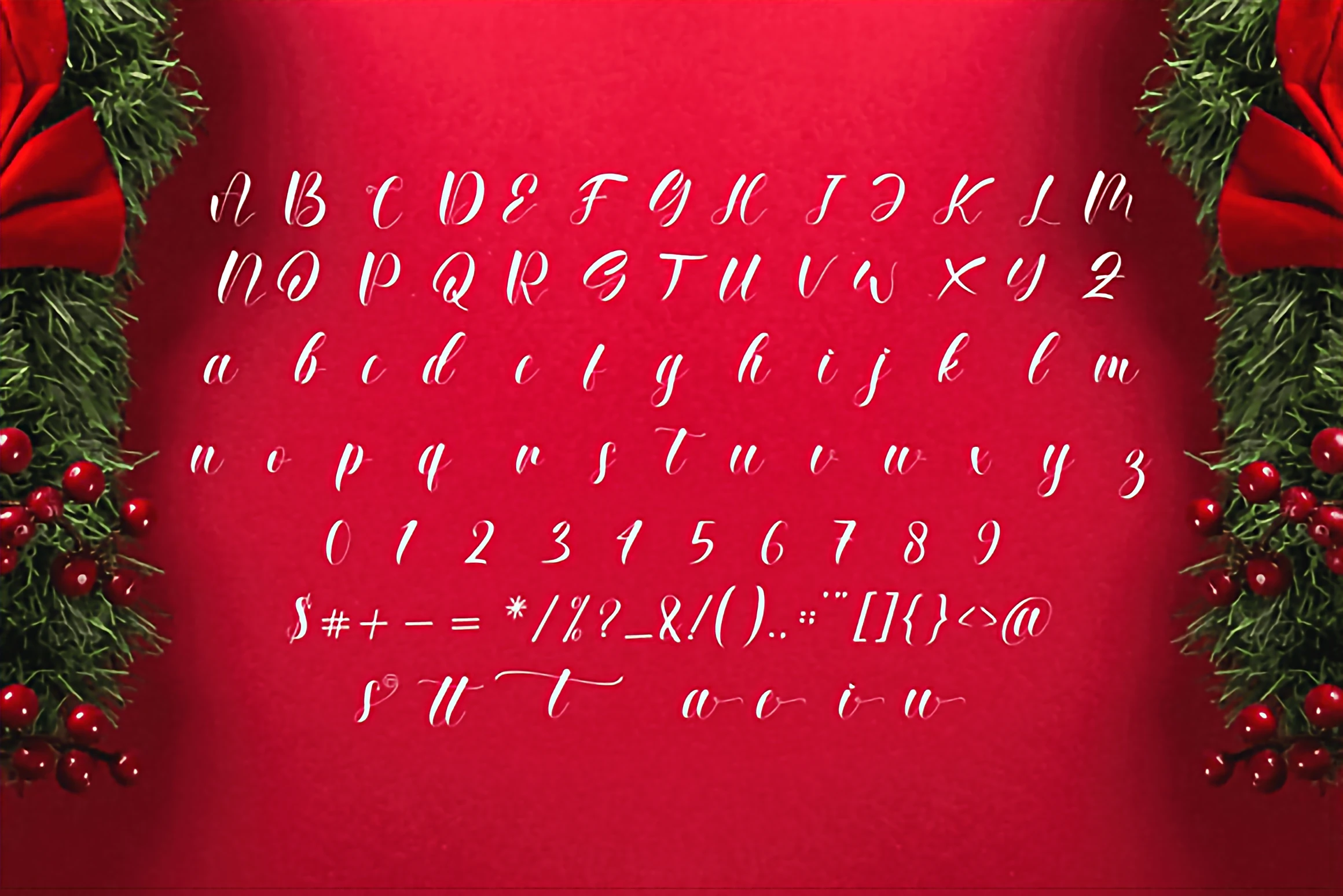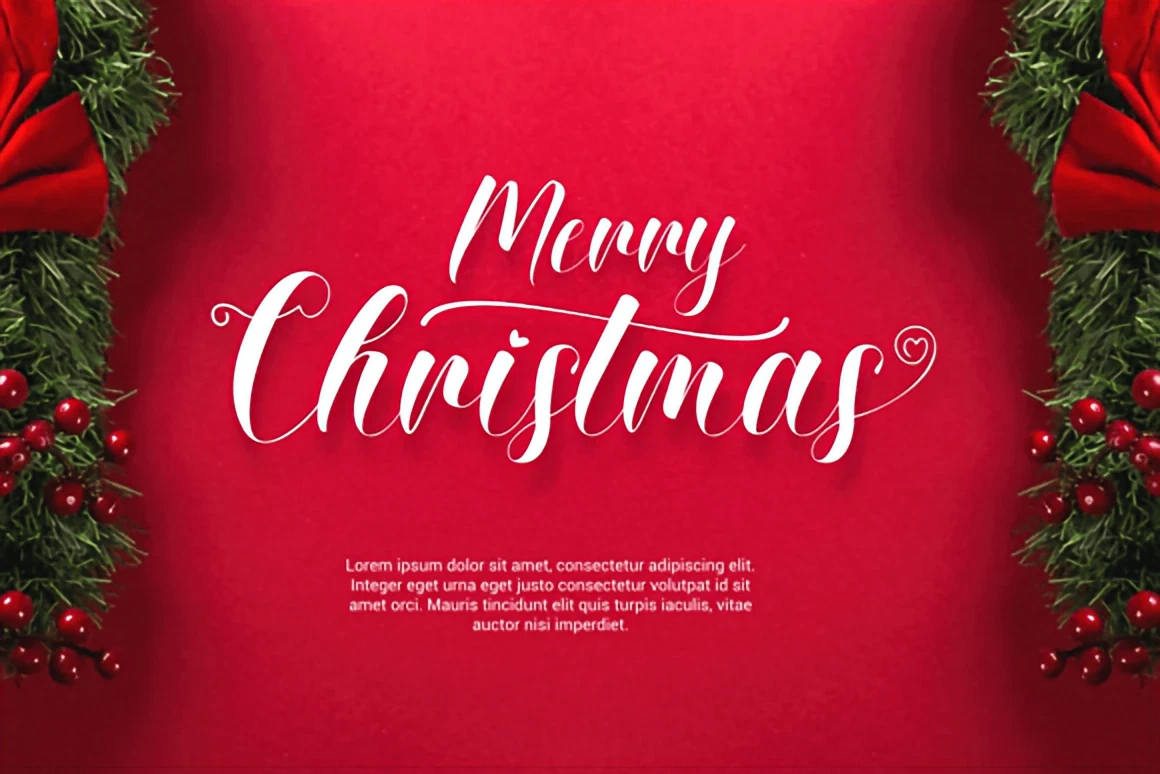
Christmas Beauty Day Font is a handwritten script ideal for designers who love balance and modern calligraphy. Its smooth curves and refined shapes bring charm to any project. The well-balanced letters make it feel high-end and polished.
It’s great for Christmas cards, winter events, fancy packaging, wedding invites, Valentine’s Day designs, boutique logos, and stationery. This script works well with any seasonal theme. It mixes calligraphy with a professional style, making it suitable for print and online use.
Designers enjoy using Christmas Beauty Day in many platforms. Its calligraphy style enhances quotes, social media posts, wedding materials, spring and Easter designs, beauty brands, and signs.
Whether you’re working on marketing for the holidays, making gifts, designing wedding items, or creating winter event invites, this font adds a spark that makes everything better.
Add charm to your work with Christmas Beauty Day Font, a script designed to make every project stand out.